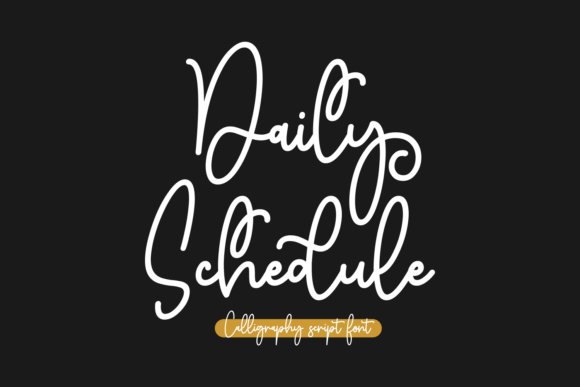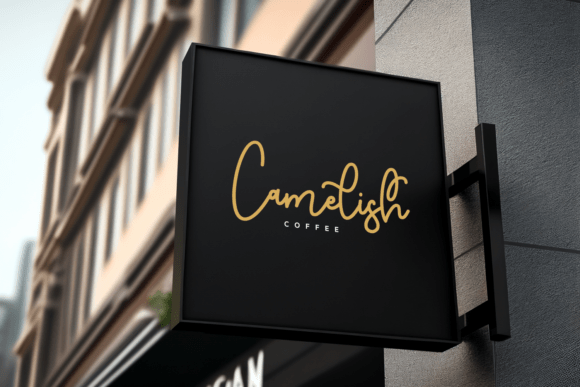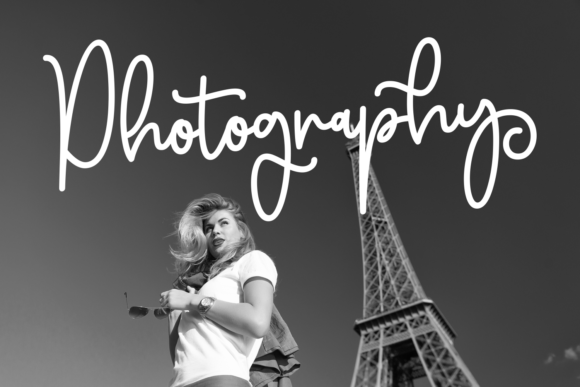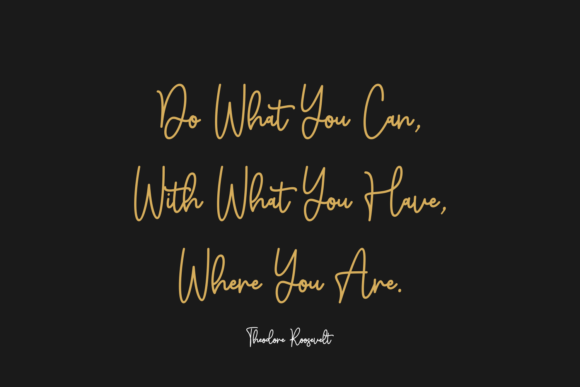
Daily Schedule Font
About the Daily Schedule Font
Get ready to be inspired by Daily Schedule Font, a fresh and dynamic typeface for modern creators. Daily Schedule is a cheerful calligraphy script font that blends casual charm with flowing elegance. Featuring thick monoline strokes, playful loops, and excellent legibility, Daily Schedule is perfect for planners, bullet journals, stationery, teacher printables, and lifestyle branding. Its hand-lettered style adds a personal and upbeat vibe to any project, making even the busiest day feel more joyful.
Daily Schedule’s cheerful personality makes it ideal for projects needing a friendly and approachable feel, such as invitations, social media graphics, and short-form content. It excels in headlines, short quotes, and logos where its legibility and charm shine. However, its calligraphic nature makes it less suitable for body text or UI elements requiring high readability in smaller sizes or dense layouts.
Pairing Daily Schedule with a clean sans-serif like Montserrat or Lato provides a strong contrast, balancing its playful strokes with modern simplicity. For a more classic feel, a serif like Playfair Display adds sophistication without overwhelming the script’s personality. Avoid pairing it with other highly decorative fonts to prevent visual clutter.
The font’s overall mood is upbeat and optimistic, making it a great choice for brands focused on lifestyle, creativity, and personal expression. Its casual elegance works well for businesses targeting a younger demographic or seeking a friendly and approachable brand image.
Daily Schedule Font Usage Examples
Daily Schedule Font Example